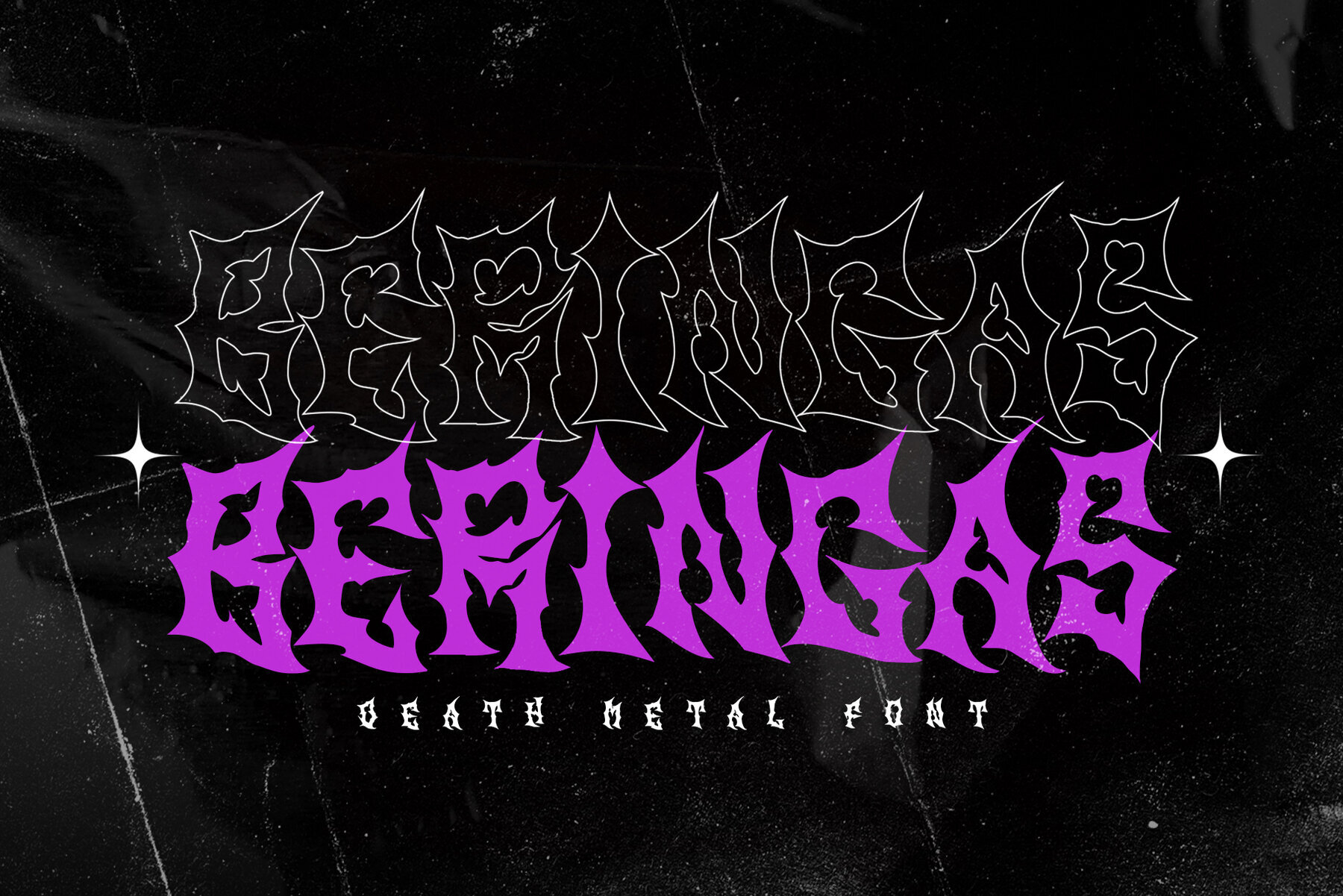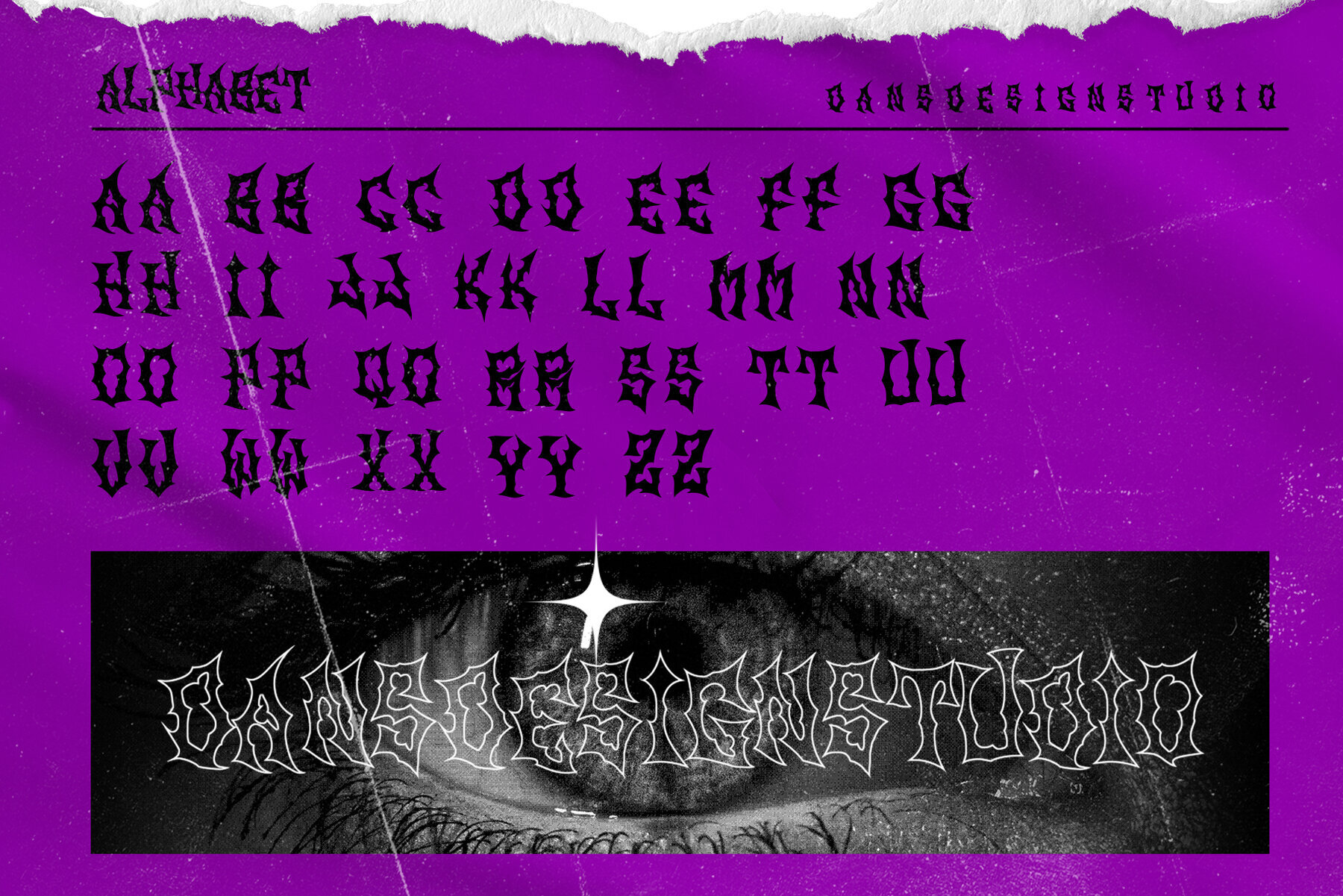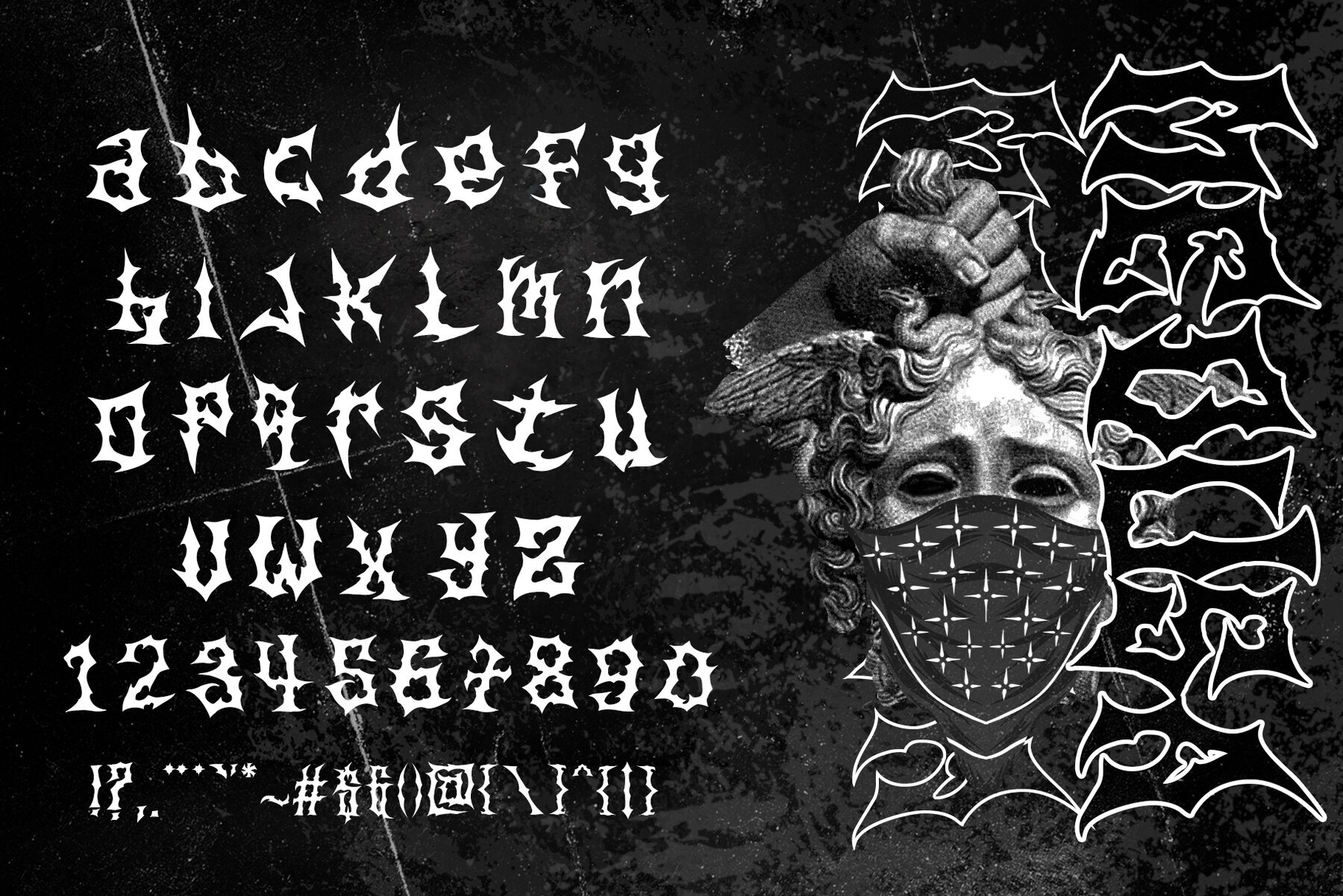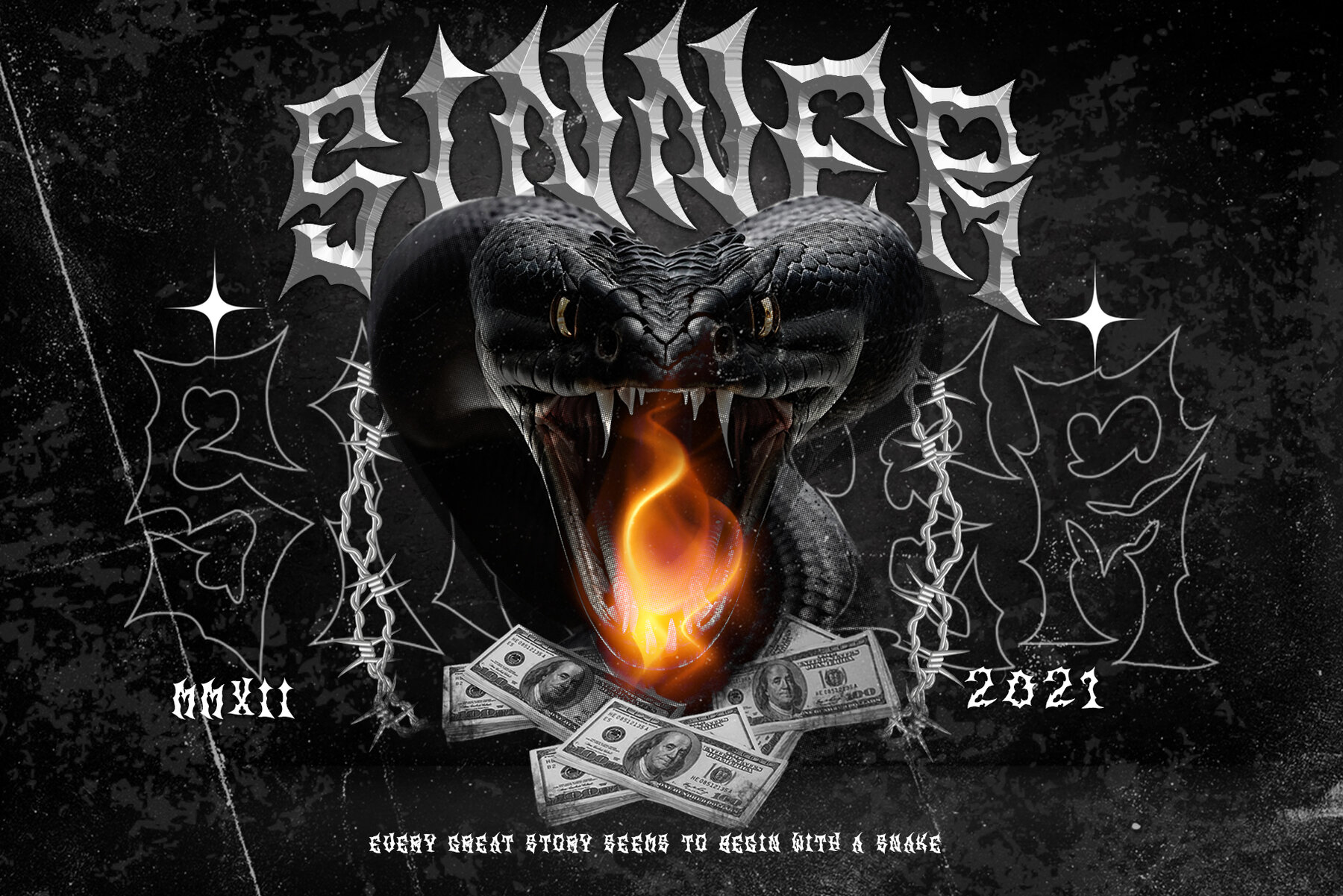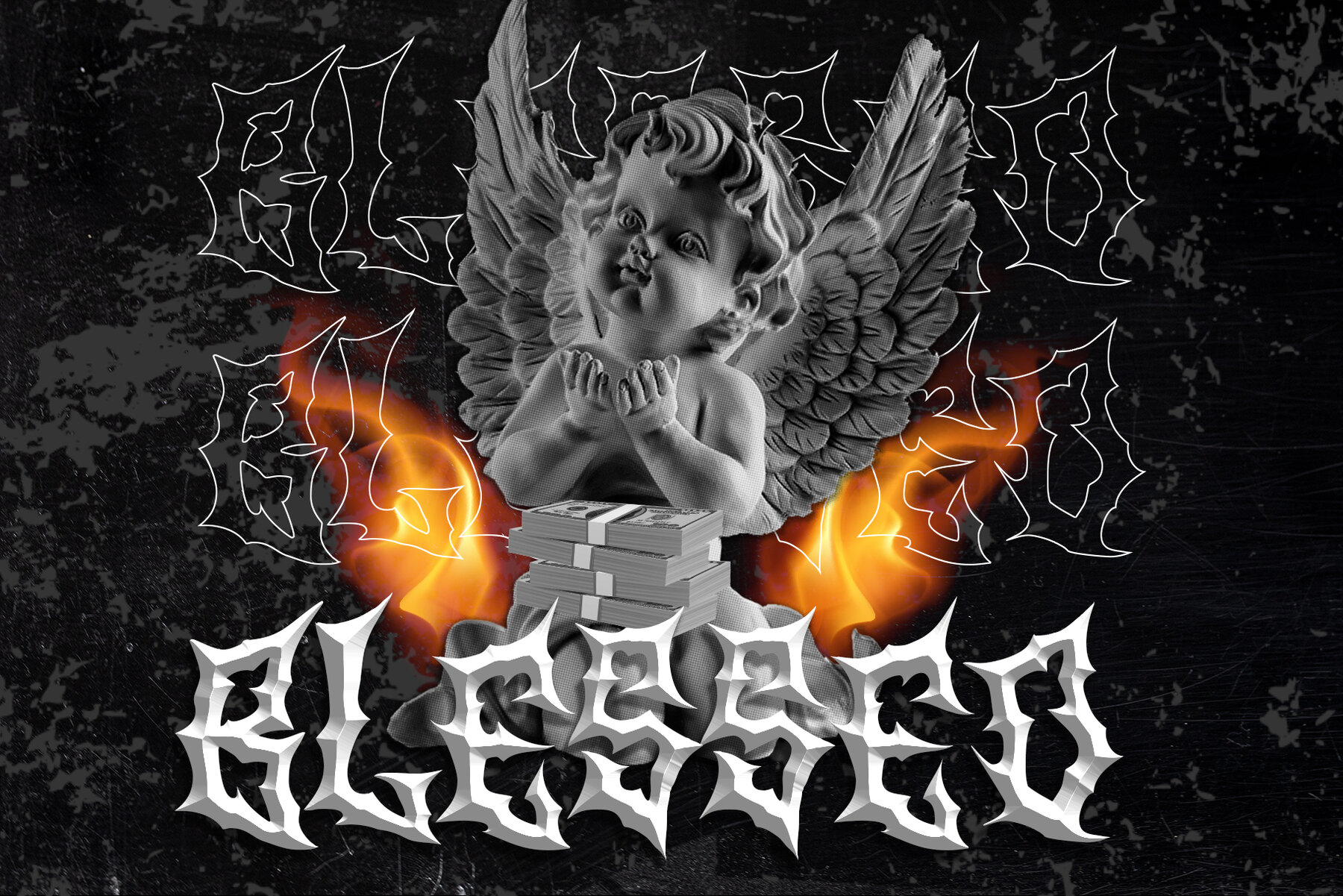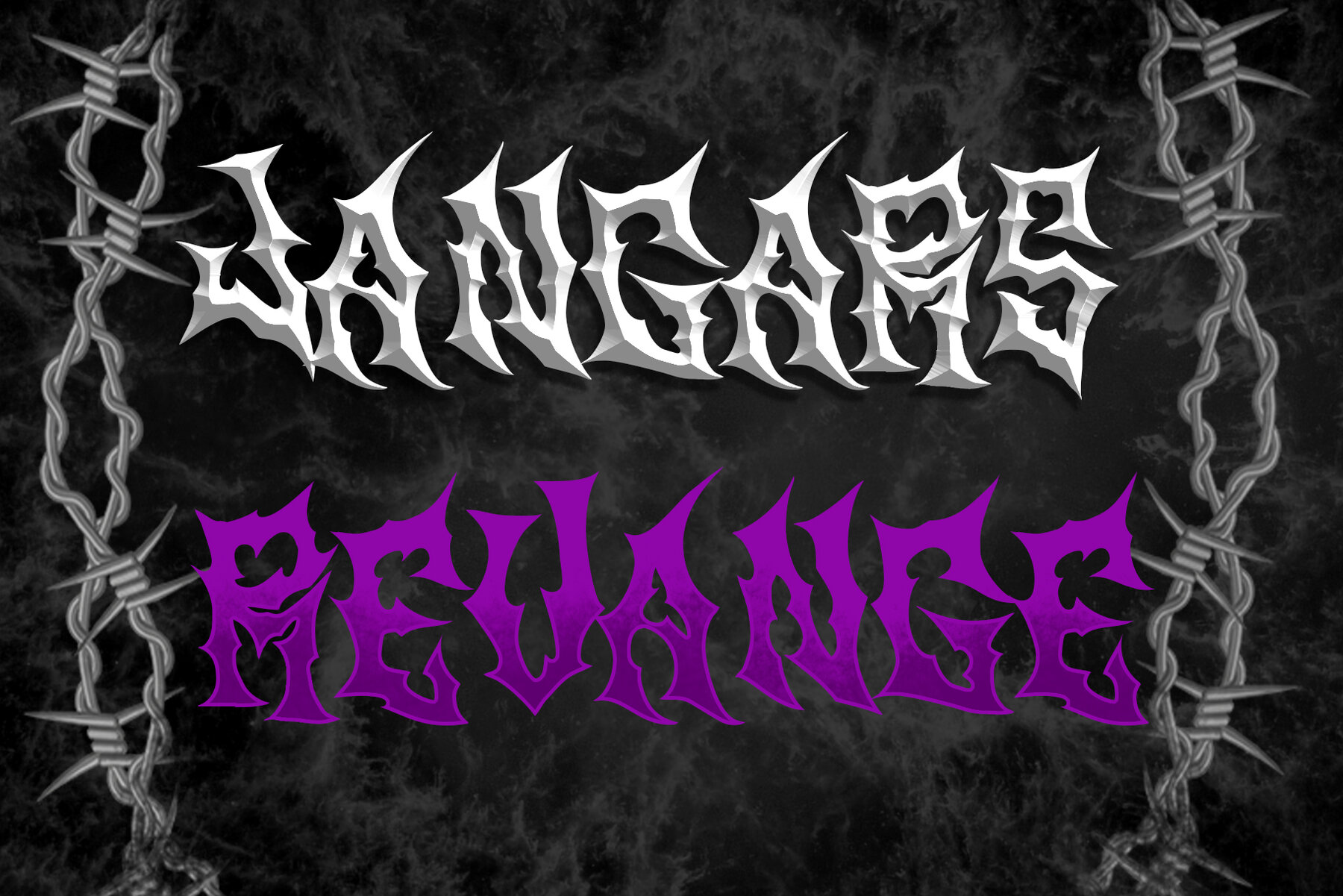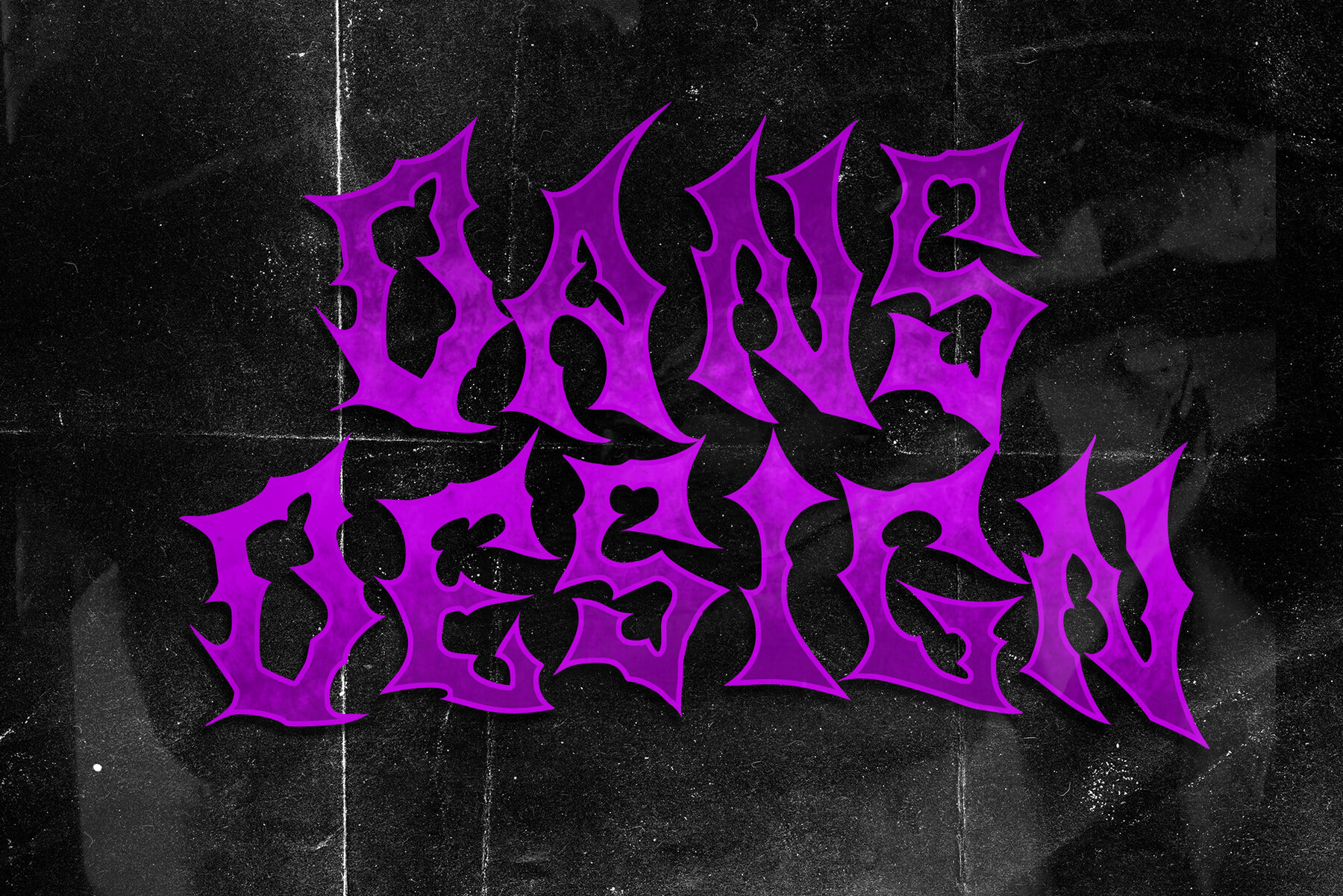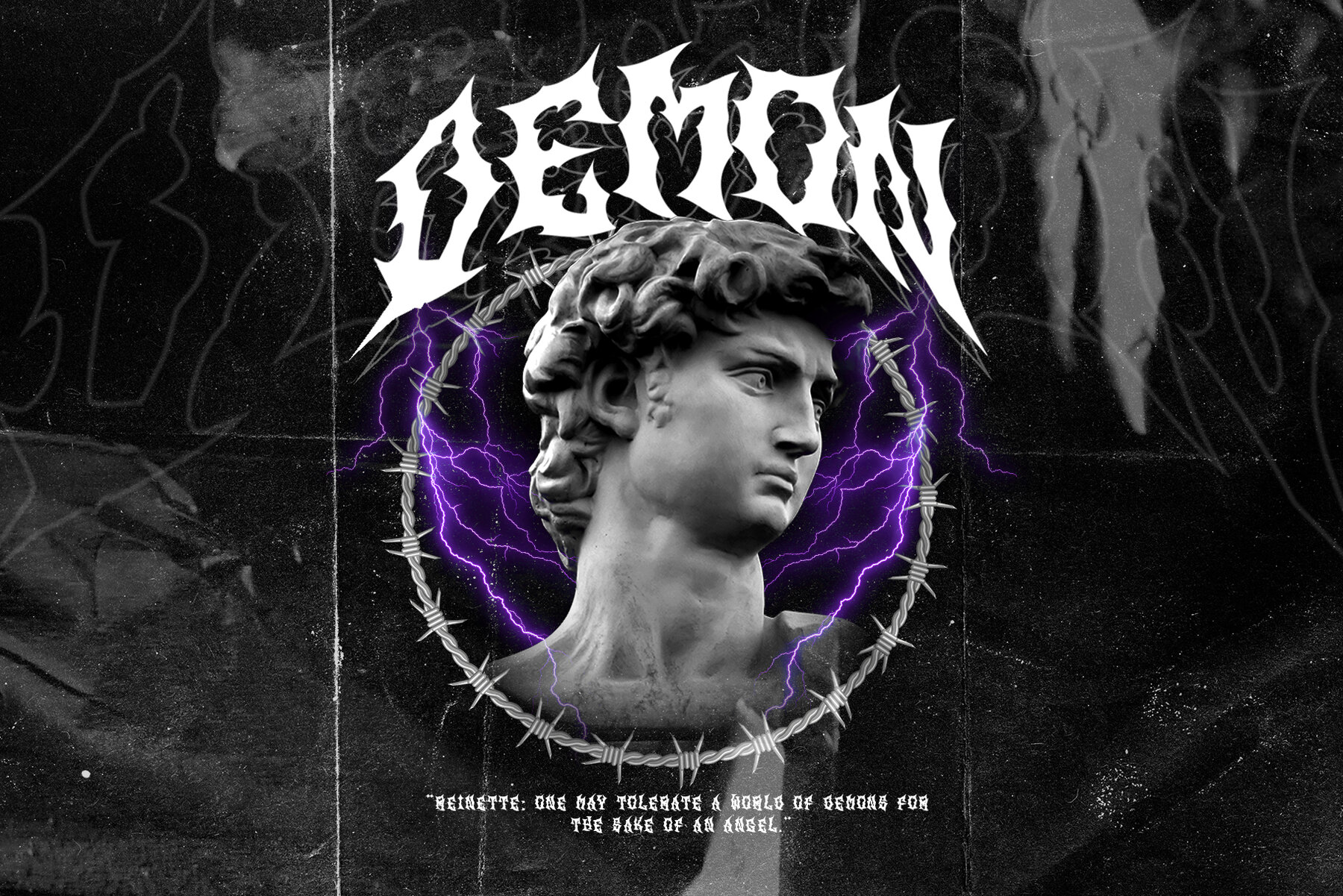
BERINGAS Font
BERINGAS
Bold, detailed, and unapologetic, BERINGAS Modern Metal Horror Font takes inspiration from gothic and heavy metal influences. With sharp, aggressive strokes, it is an ideal choice for projects that demand a dark and powerful aesthetic. Whether for music artwork, concert posters, or tattoo branding, this typeface imbues a retro-urban, vintage vibe suited to unique and creative endeavors.BERINGAS Modern Metal Horror Font: Bold and Gothic Aesthetics